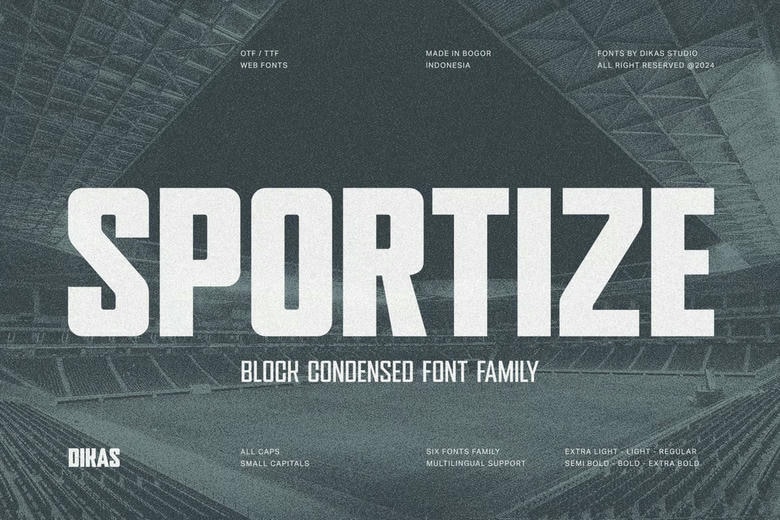
Sportize Font Family
Sportize Font
Sportize is a powerful, condensed Sans-Serif font with a square design, ideal for sports-themed projects. Available in six styles (extra light, light, regular, semi-bold, bold, and extra bold), it offers versatility for headlines, posters, and more. Whether you’re designing for a team, event, or sports brand, Sportize delivers impactful, professional results with a sporty edge.
Sportize Sans Serif Font Family